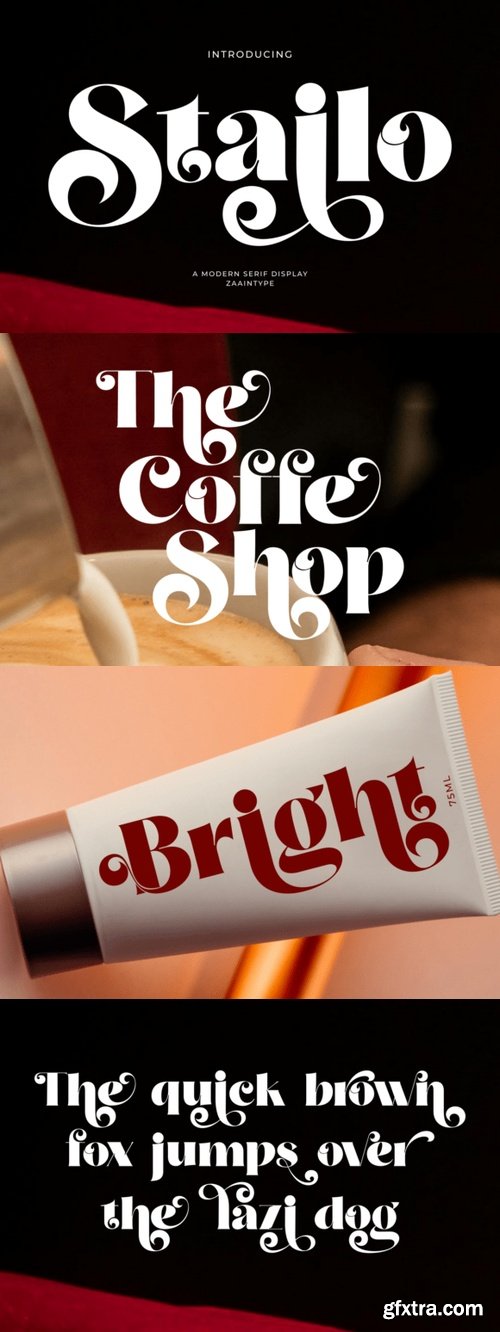
- Stailo is a modern serif font with sharp contrast and short, clean serifs. Elegant, confident, and stylish — perfect for fashion branding, luxury editorials, and packaging design that demands attention. Available in two expressive styles: Regular and Oblique
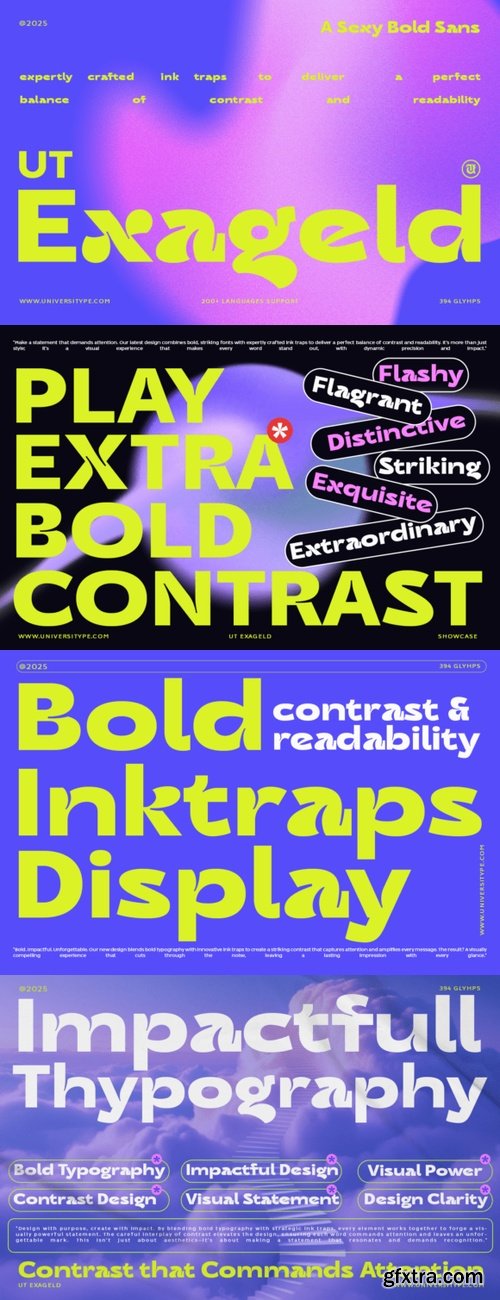
- UT Exageld is a bold, sexy, and versatile sans-serif font that is perfect for designers looking to make a strong visual impact. With its expertly crafted ink traps, UT Exageld delivers a perfect balance of contrast and readability, making it suitable for a wide range of applications.
- This font is ideal for graphic designers, typographers, and creative professionals who are looking for a modern and striking typeface to use in their projects. It is particularly well-suited for those working in branding, advertising, and editorial design.
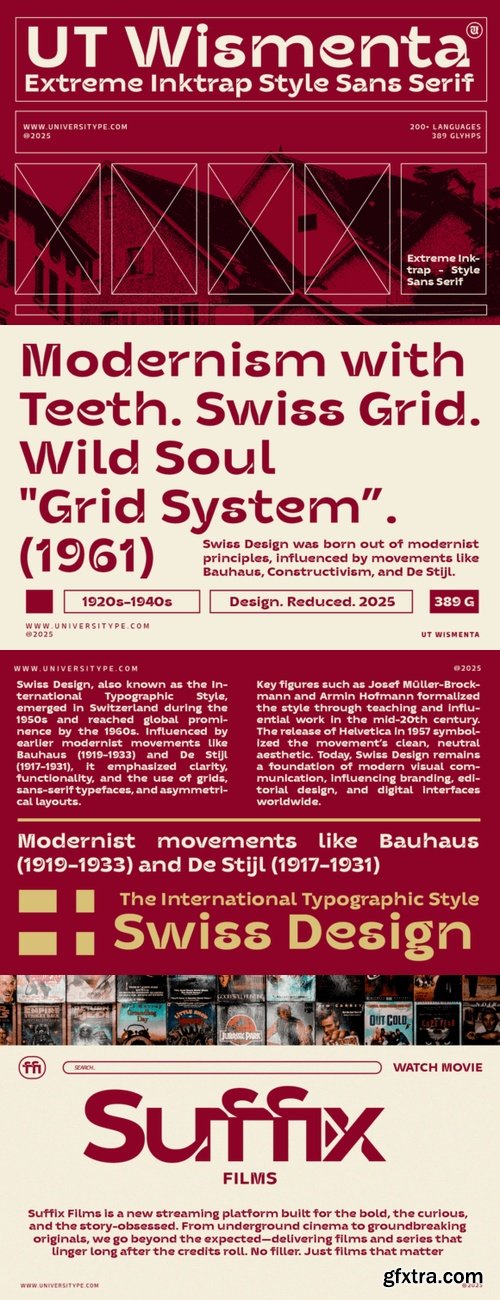
- Meet UT Wismenta, a bold display typeface that mixes the clean structure of Swiss modernism with the raw attitude of extreme ink traps. Built on grid logic but broken by brutal, expressive forms, this sans serif doesn’t just speak with structure, it shouts with style.
- UT Wismenta is made for bold, creative minds who want their work to stand out. Perfect for graphic designers, typographers, and artists looking to add a fresh, modern edge to branding, editorial layouts, packaging, and digital interfaces.
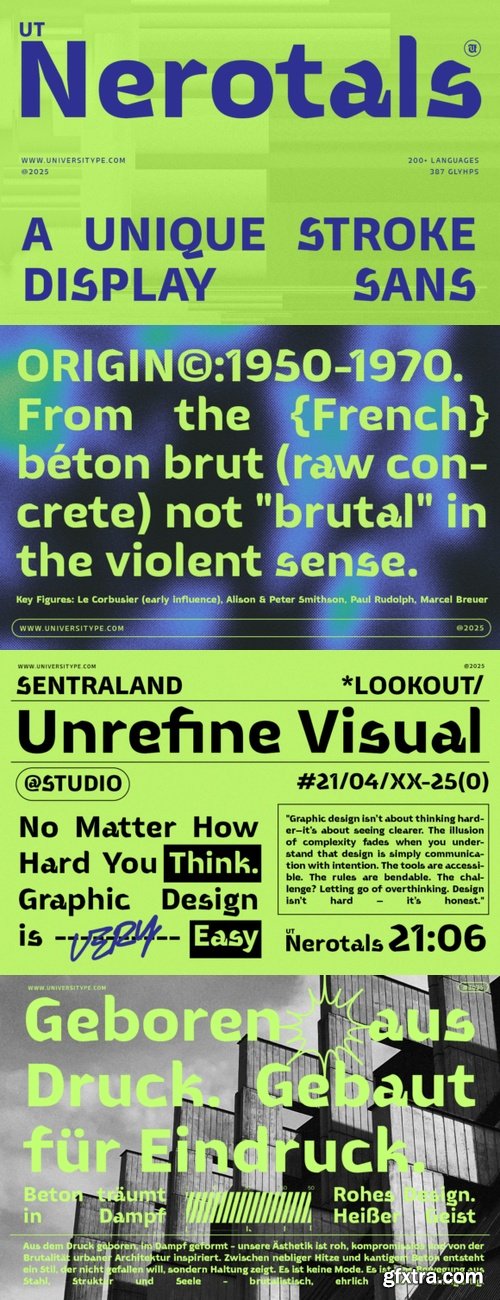
- Introducing UT Nerotals, a highly impactful and modern typeface that breathes life into the quintessence of modern sculptural aesthetics. This typeface showcases a beautiful fusion of power and flexibility, portraying the heart and soul of three-dimensional art in the canvas of a two-dimensional format.
- Every stroke of UT Nerotals speaks of grace and strength, with its broad letterforms and sleek curves paving the way for stability and finesse. These characteristics make it a perfect fit for an array of design platforms.
- This exquisite typeface aligns perfectly with the artistic needs of graphic designers, branding agencies, and editorial designers who are seeking a font that mirrors modernism and creative expression.
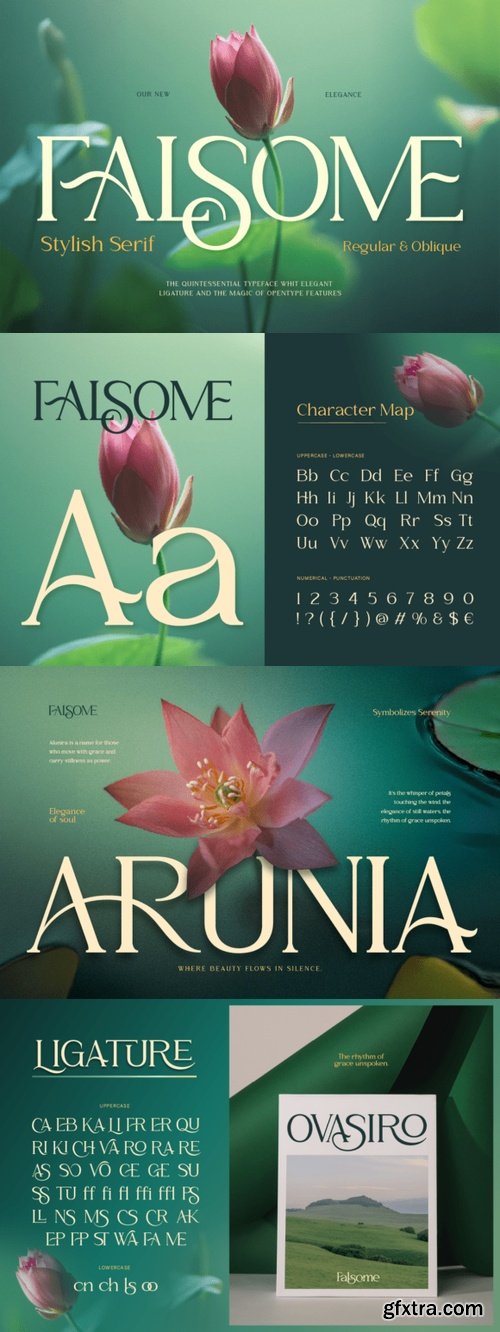
- Introducing Falsome, a stylish serif typeface that blends classic charm with modern elegance. Crafted with high attention to detail, with its unique ligatures and alternates. Falsome is the perfect choice for designers who want to create stunning and high-end visuals with 2 styles: regular and oblique. The Regular and Oblique styles make it easy to create dynamic and layered typographic compositions. Falsome gives your typography that extra touch of beauty and refinement. This font is made to elevate any project that needs a stylish, feminine, and timeless look. If you're looking for a font that can bring emotion and beauty into your work while staying versatile and easy to use, Falsome is the one. Whether you're working on a luxurious branding identity, wedding invitations, fashion editorials, or elegant packaging.
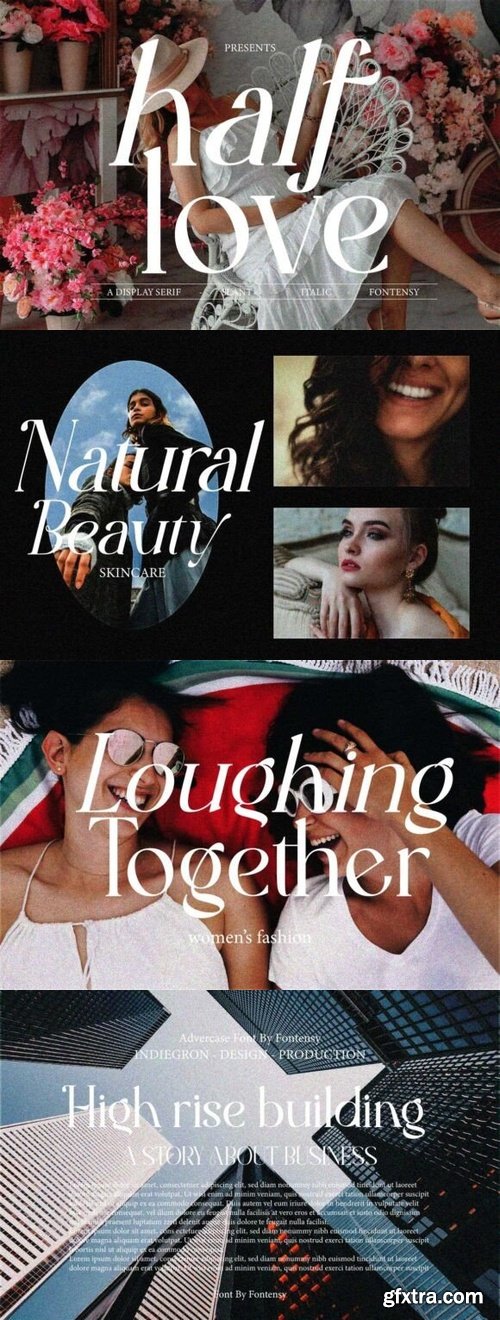
- Half Love is a stylish font that is both retro and bold font. It's thick curves give a 70s groovy vibe with the serifs bringing it slightly back to traditional
- Half Love fits perfectly into those nostalgic moodboards and vintage logos. It come with a unique lower and uppercase plus numbers, punctuation & multilingual letters.
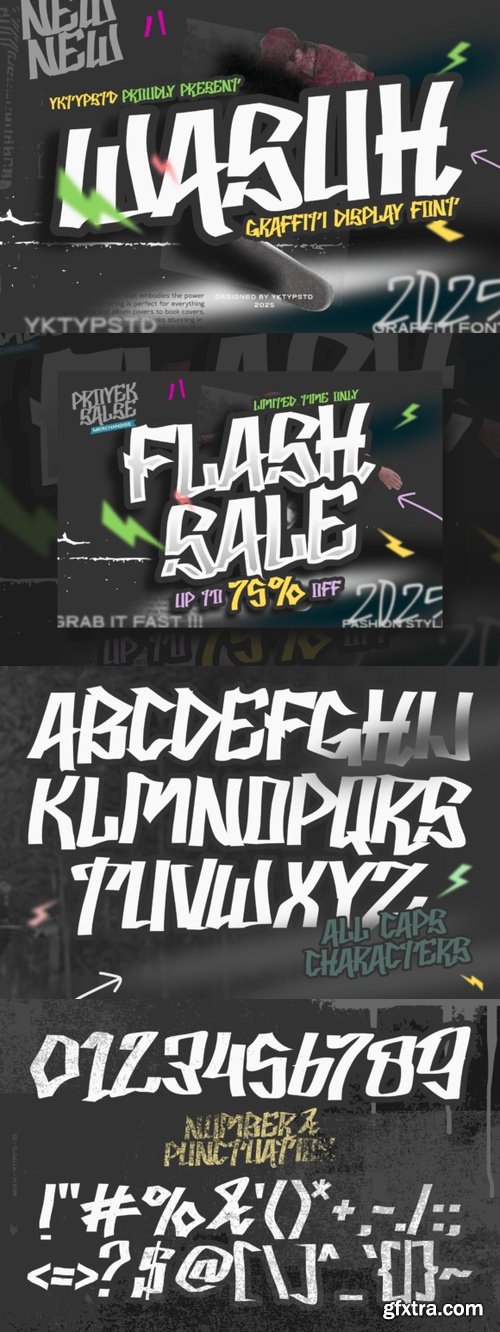
- Inject a vibrant street edge into your designs with the Wasuh font. Boasting bold, powerful lettering drawn from the raw energy of urban graffiti, Wasuh bursts onto the scene with unmistakable style. Set your event posters, album, or book covers alight with its high-impact demeanor, or let Wasuh carry your message loud and clear on social media graphics. Perfectly paired with urban streetwear designs, the Wasuh font embodies the rhythmic pulse of city life. Use it to add character to your magazine layouts, or to breathe life into hard-hitting quotes. With its graffiti-inspired aesthetics, the Wasuh font lends your creative projects a burst of dynamic, daring, and distinctive flair.
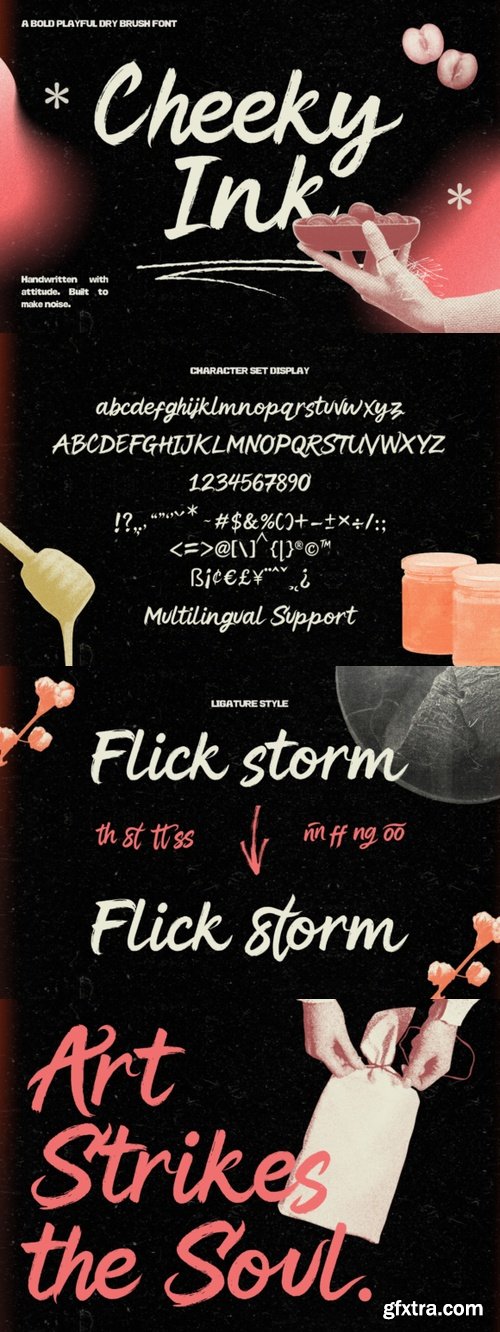
- Unleash your wild side with Cheeky Ink, a bold, dry-brush font packed with cheeky character, messy strokes, and unapologetic energy.
- Handwritten with raw emotion and flicks of rebellion, Cheeky Ink is perfect for designs that refuse to whisper—posters, merch, streetwear, album covers, bold branding, or anything that needs to shout louder than the rest.
- With rough textures, dynamic ligatures, and swash alternates, every word you type feels spontaneous and alive, like it was just thrown onto the wall with a brush and a grin.
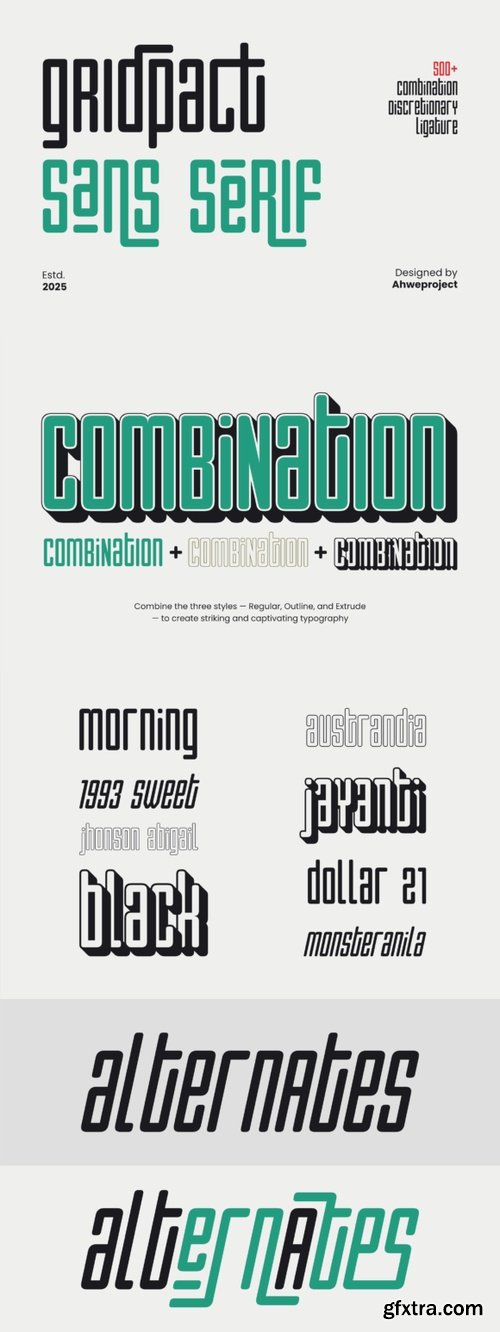
- Introducing Gridpact, a modern sans serif font crafted for those who love clean, futuristic, and character-packed designs. Built on a precise grid system, Gridpact stands out with over 500 discretionary ligature combinations, giving every word a unique and eye-catching look.
- Perfect for branding designs, electronic music posters, sci-fi book covers, creative logos, and other modern projects. Its modular and minimalist letterforms make it both flexible and stylish with a strong, consistent identity.
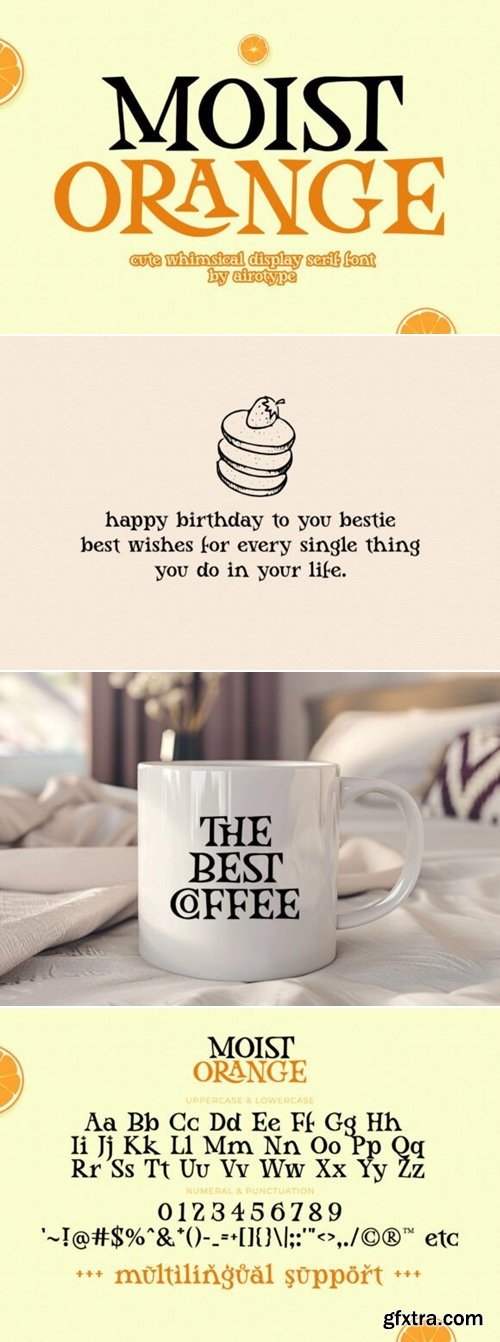
- Sheylia is a stylish script calligraphy font that exudes elegance and artistry. With its soft loops, refined curves, and charming swashes, Sheylia is perfect for wedding invitations, high-end branding, social media graphics, and beauty packaging. It captures attention while maintaining a graceful, feminine flow—ideal for designs that need a sophisticated, personal touch.